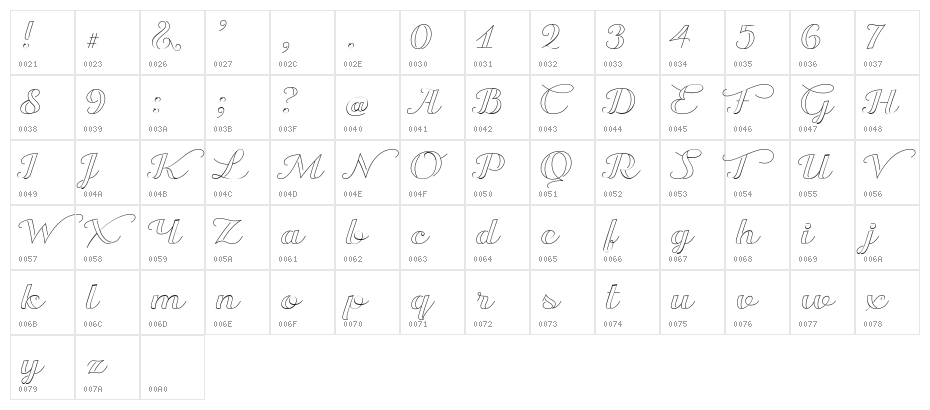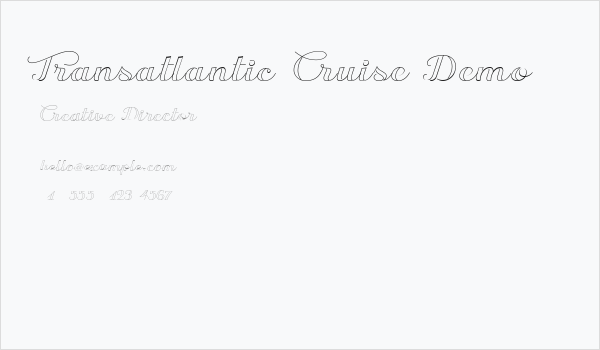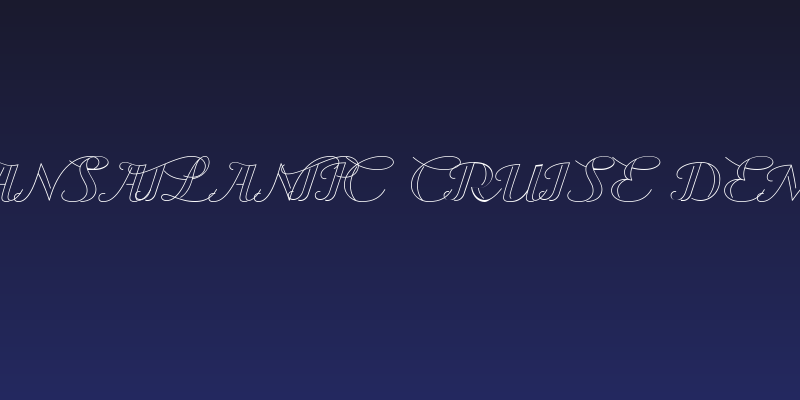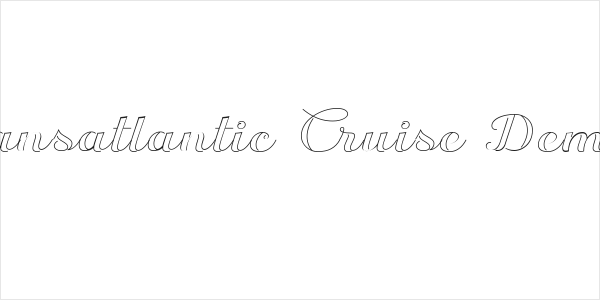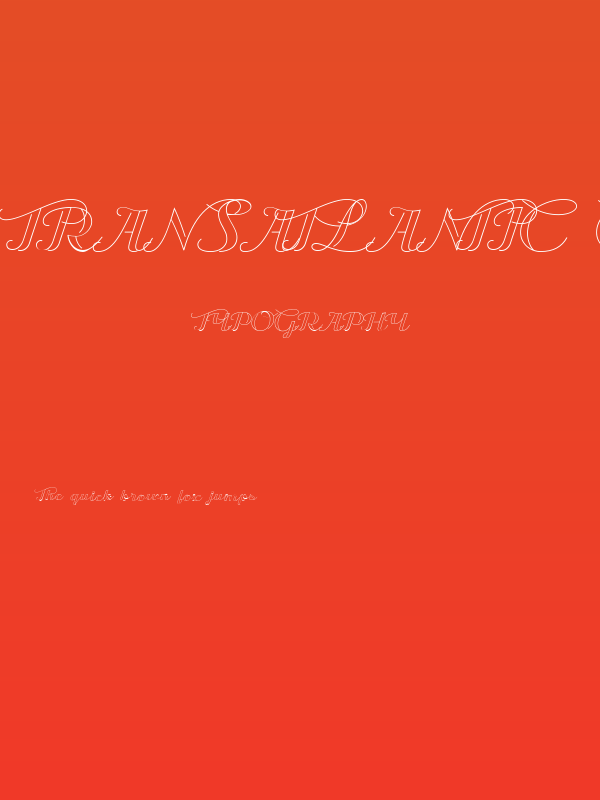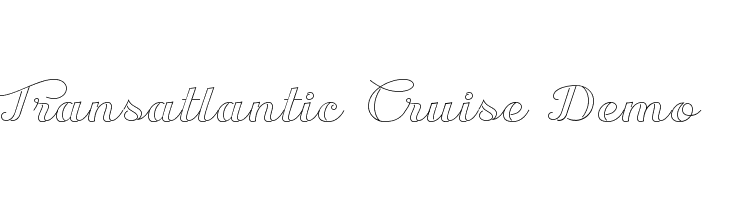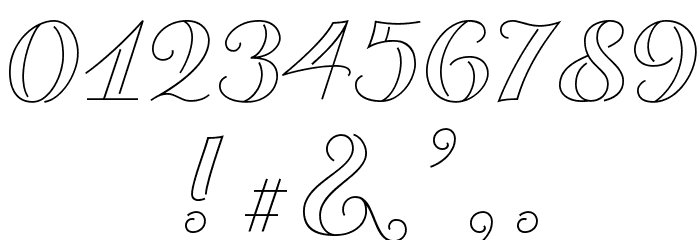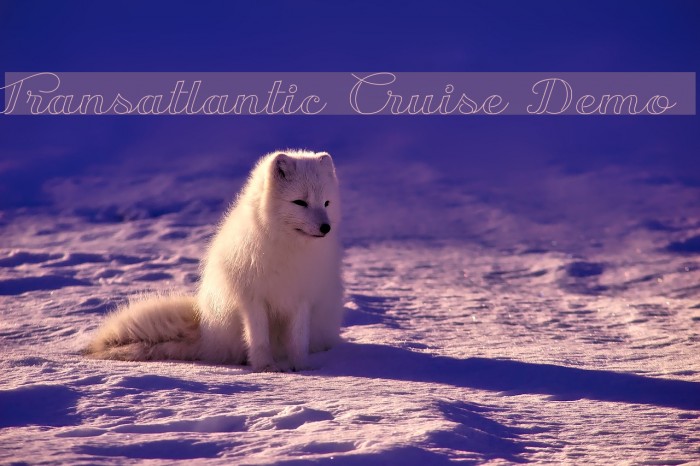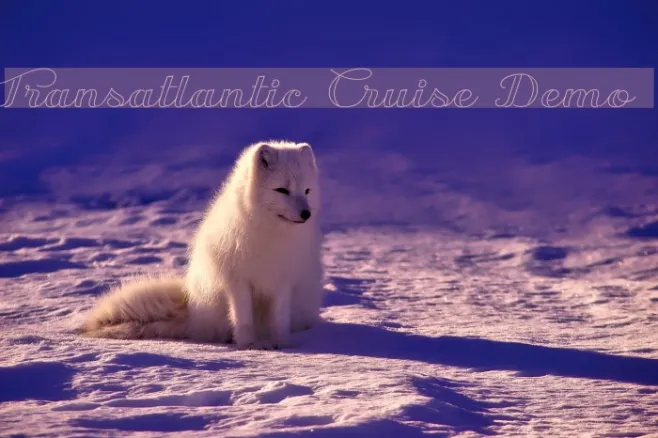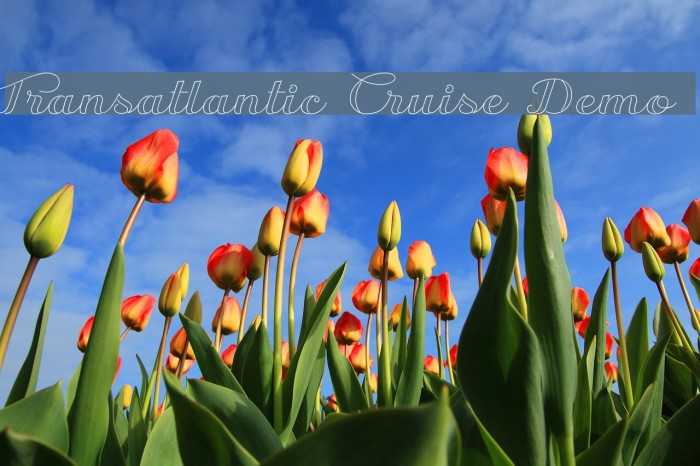
Transatlantic Cruise Demo Font
Transatlantic Cruise Demo Description
This elegant script font features a flowing, cursive style with a refined and sophisticated appearance. The uppercase letters are characterized by their graceful loops and swirls, giving them a sense of movement and fluidity. The lowercase letters maintain a consistent style, with smooth curves and a slightly slanted orientation that enhances readability. The numerals are designed with a similar flair, incorporating subtle curves that align with the overall aesthetic. Special characters are thoughtfully crafted, maintaining the font's cohesive look. The thin lines and delicate strokes contribute to a light and airy feel, making it suitable for formal and decorative applications.
| Overall Style | Elegant |
| Use Case | Logos, Invitations, Decorative text |
| Proposed Projects | Ideal for wedding invitations, elegant branding, greeting cards, and high-end product packaging. |